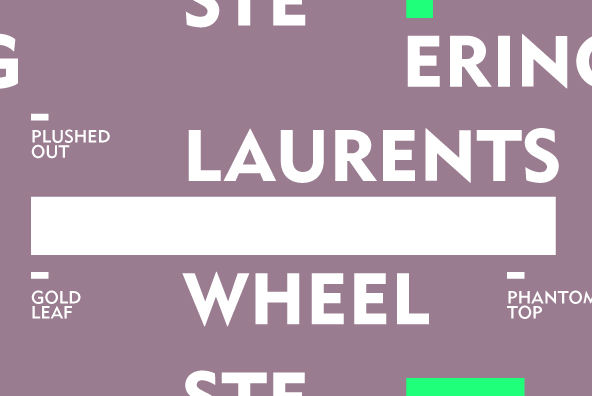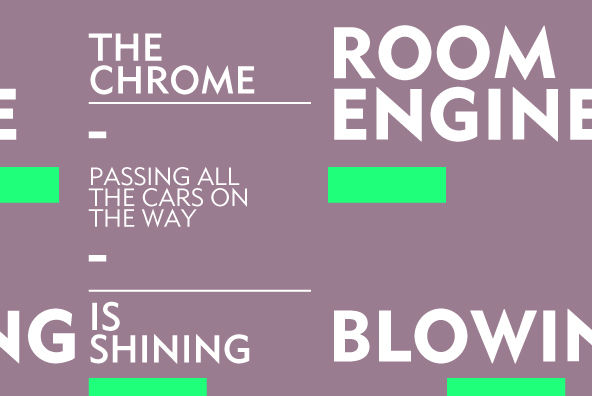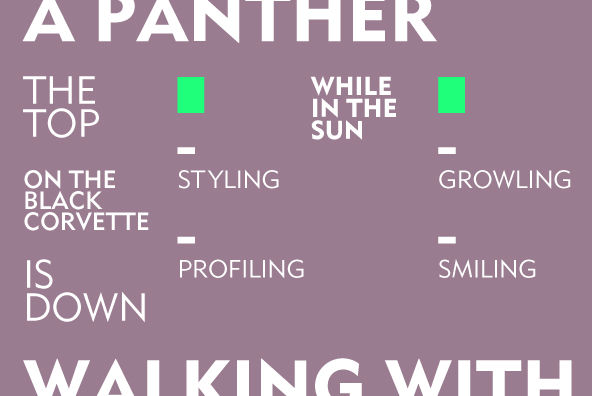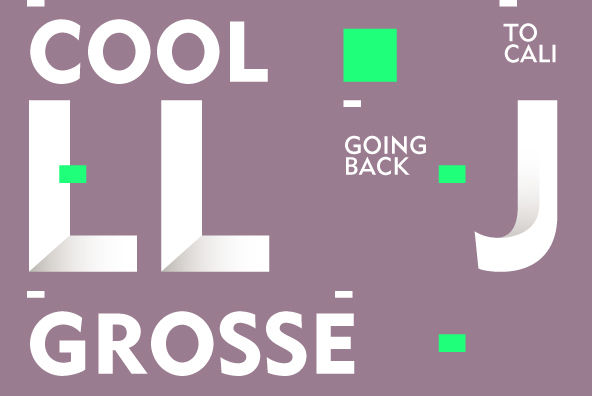
Grosse Pointe Metro Font Family – 6 Fonts
Grosse Pointe Metro™ is GroupType’s version of W.A. Dwiggins’ 1930 Metrolite. Metrolite was first commissioned by Mergenthaler in 1929 to bring a slightly more human and friendly design choice to compete in the US with the highly popular European, geometric sans serif typefaces of the time including Paul Renner’s Futura. However, Dwiggins’ best efforts proved that human warmth had little to do with cool geometry; for twelve years, until the introduction of Spartan, Mergenthaler lost ground to Intertype’s licensed version of Futura.